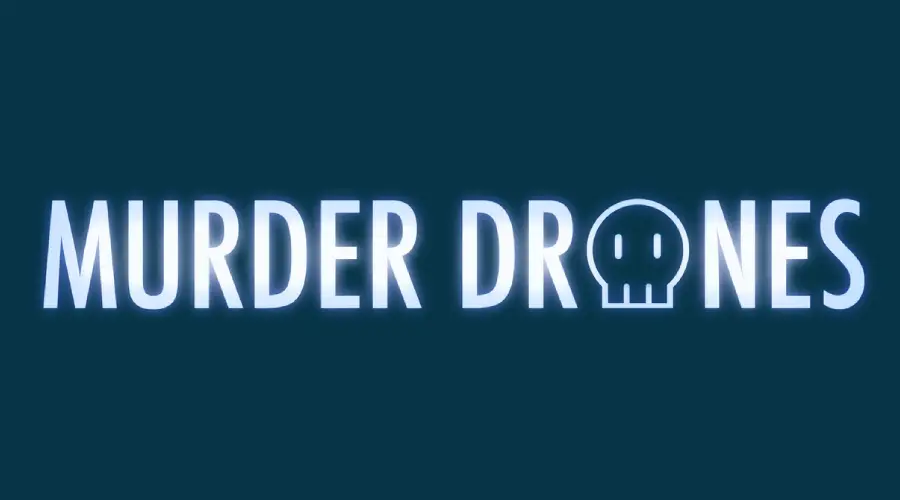
The Murder Drones Font is a distinctive typeface associated with the Australian animated web series Murder Drones, produced by Glitch Productions. The series, known for its dark humor, sci-fi horror, and action-packed storyline, features a logo with a futuristic and bold font style. The Murder Drones logo was designed using Futura Medium Condensed, with a customized “O. This font is widely recognized for its clean, geometric design, making it a perfect fit for the series’ modern and edgy aesthetic.
Futura Medium Condensed by URW Type Foundry: This is the original font used in the logo.